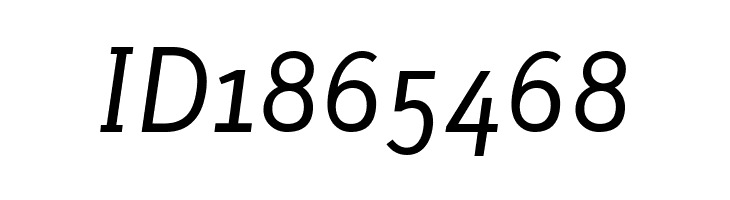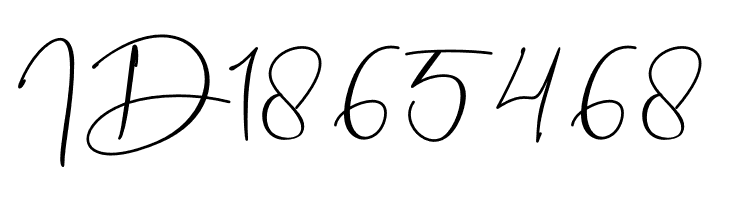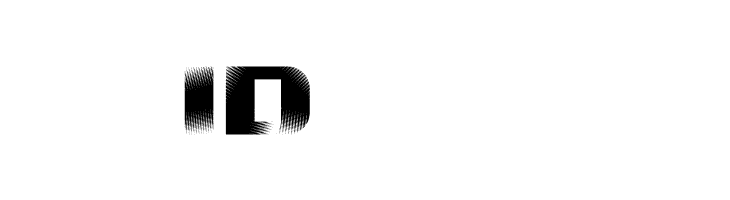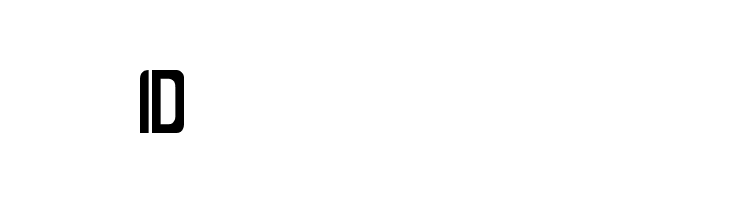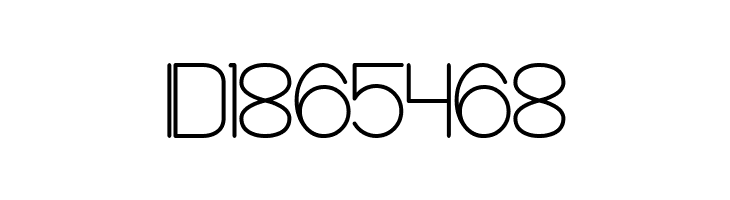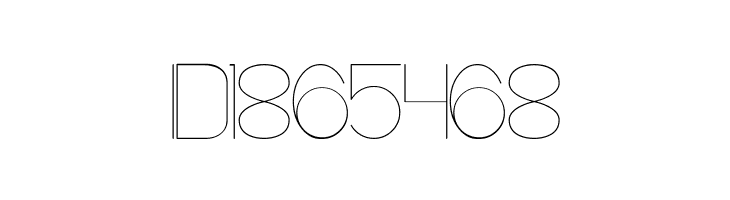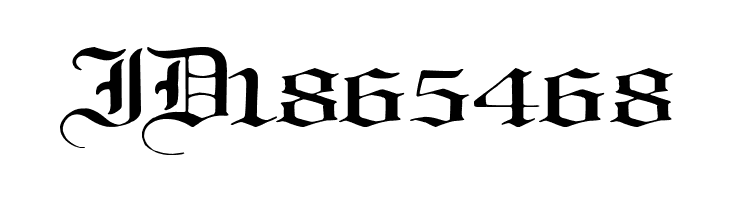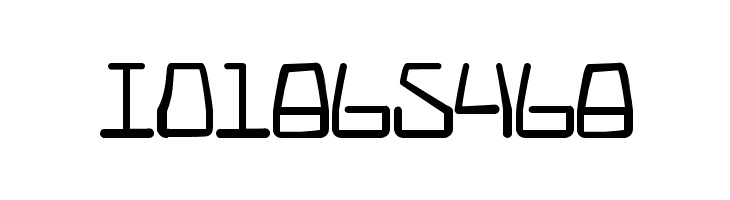
A bold, geometric font with a modern, racing-inspired aesthetic.
A geometric, monospaced font with rounded edges and consistent line thickness.
A lively, expressive handwritten font with fluid strokes and a casual elegance.
A sleek, modern font with thin, geometric lines and a minimalistic design.
A modern, geometric font with clean lines and a minimalist style.
A traditional blackletter font with ornate, gothic-style characters.
A bold, futuristic font with a dynamic gradient effect and strong, angular characters.
A sleek, modern italic font with clean lines and smooth curves.